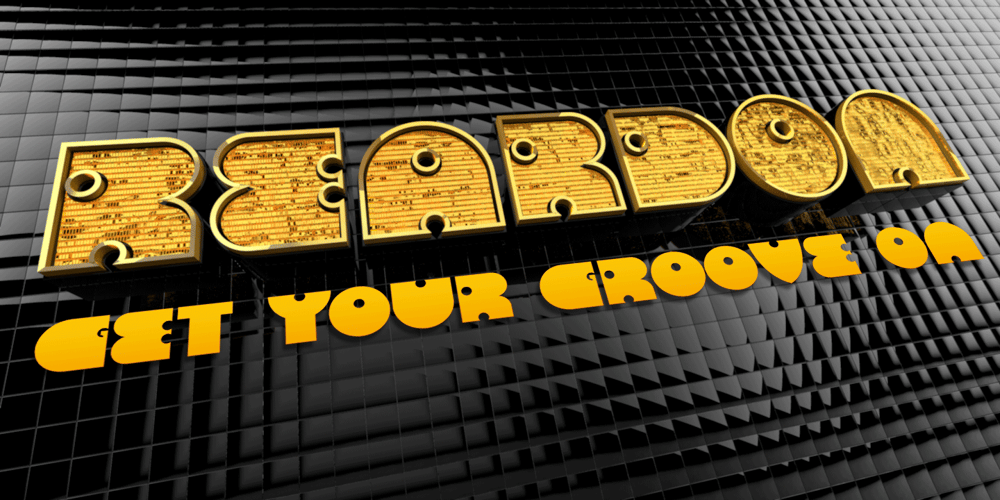
Reardon AOE Font Family was designed by Brian J. Bonislawsky and published by Astigmatic. Reardon AOE contains 1 styles and family package options. Disco lives on in the alphabet stylings of Reardon AOE. From its uber-fat letterforms to its hole punched counters, Reardon AOE started as a digitization of a film typeface called Joyce Black by LetterGraphics. This flashback typestyle was taken from its limited A-Z and numerals set and fleshed out to include an expanded language glyph set. Reardon AOE finds itself thrown into a late 70’s-early 80’s flashback frame of mind, appealing to all of the disco and video game typography of that time, ready to throw down the vibe for your designs.